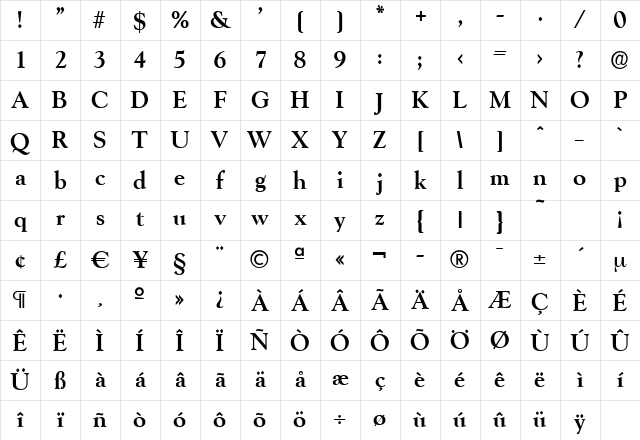
JackBecker Bold
JackBecker Family
JackBecker Bold
Design Context for JackBecker
JackBecker is a composed and adaptable typeface that performs quietly and consistently across a wide range of design contexts. Its bold stroke weight gives it real presence on the page.